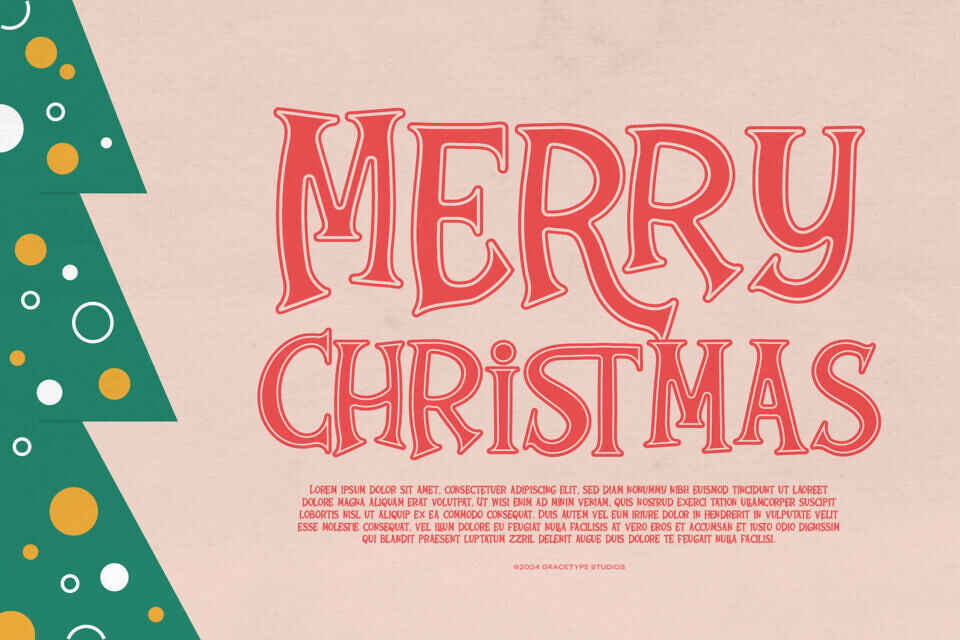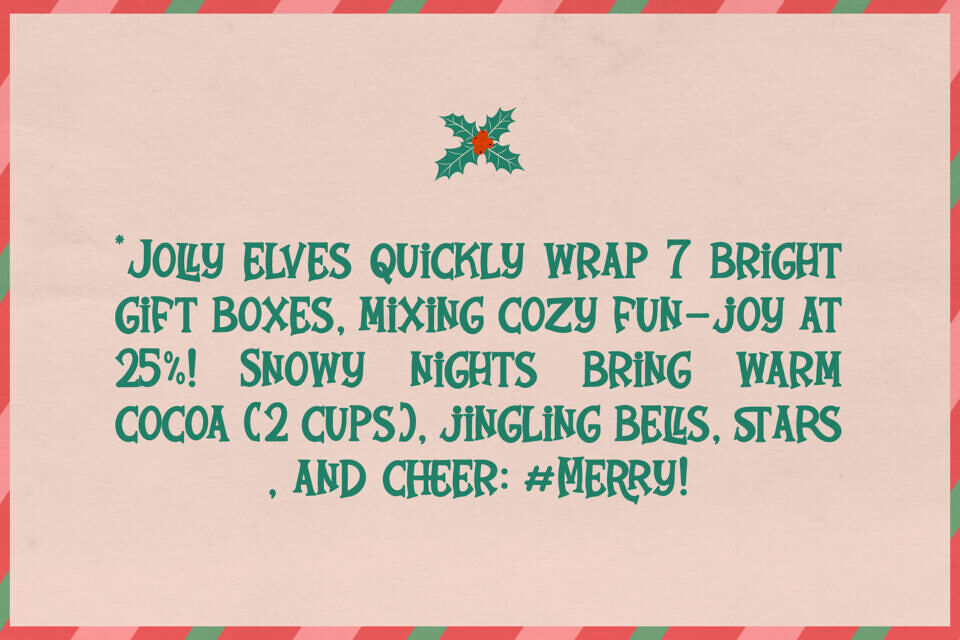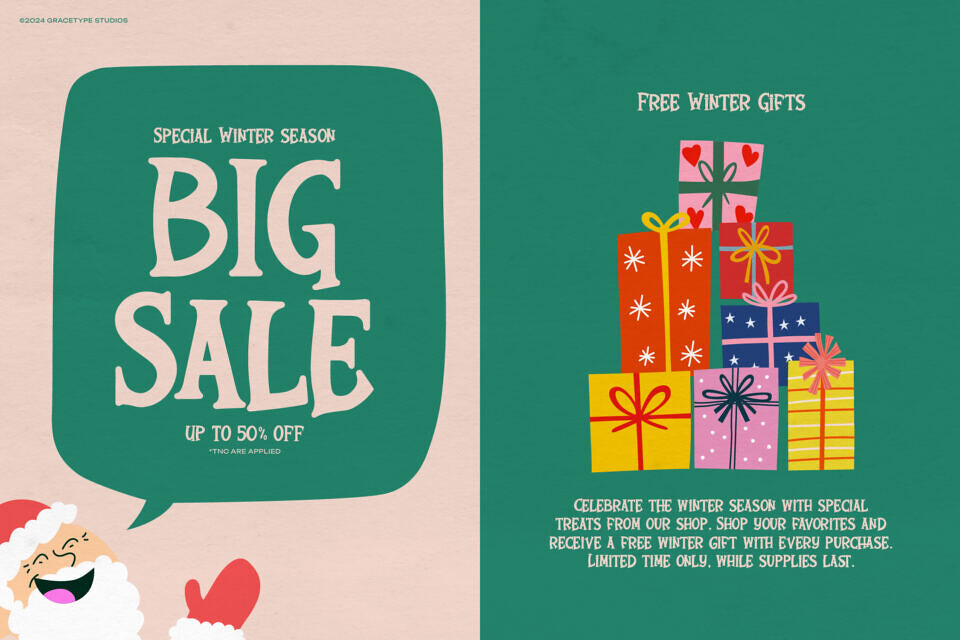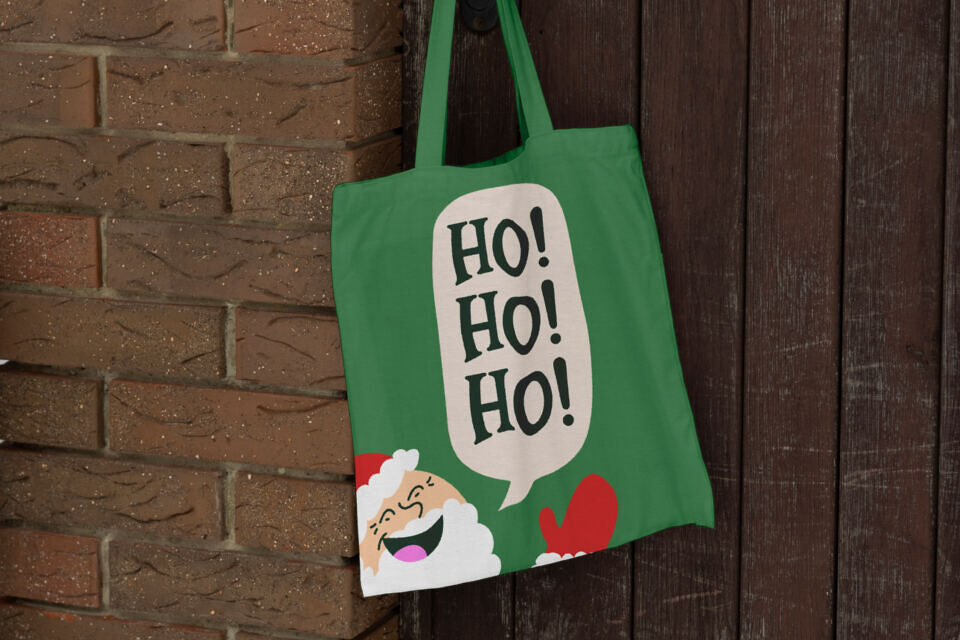
Spread the holiday spirit with the Jingle Cheer font, a whimsical and festive display typeface that captures the joy of the season. This Jingle Cheer typeface features bouncy, hand-drawn curves and playful serifs that feel warm and inviting.
Ideal for Christmas cards, gift tags, and winter branding, the Jingle Cheer font brings a touch of magic to your seasonal designs. With its unique ligatures and alternates, the Jingle Cheer typeface allows you to create truly custom-feeling holiday greetings that stand out in the mail.